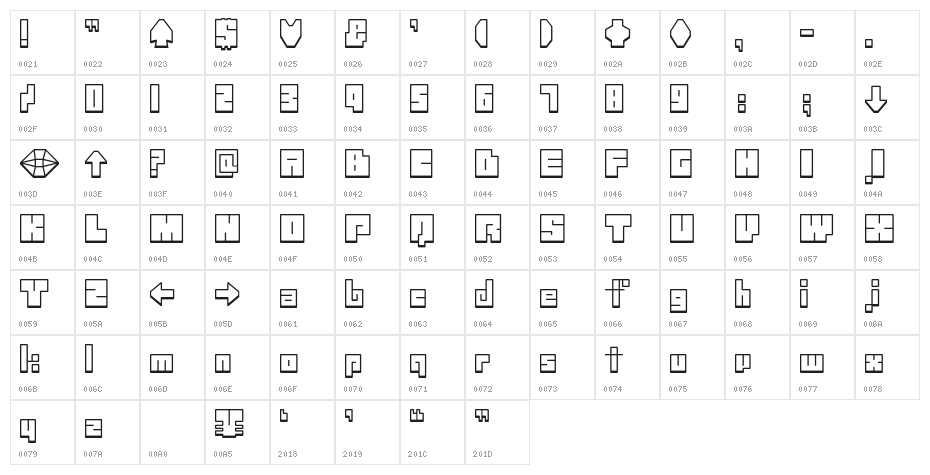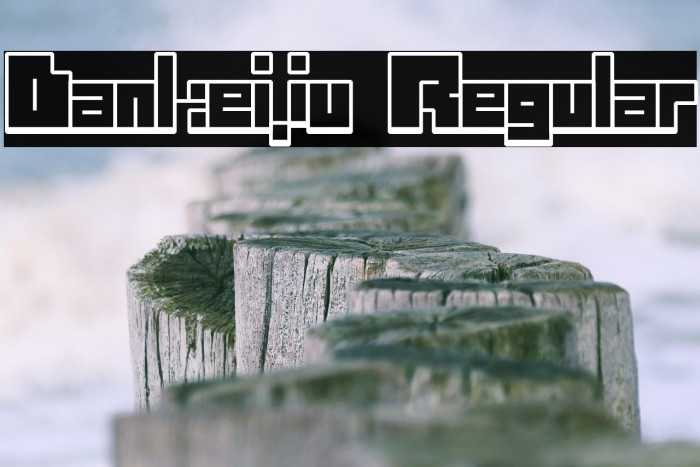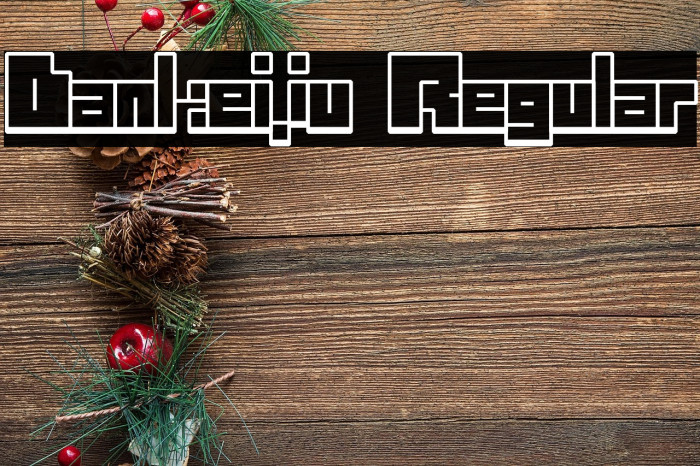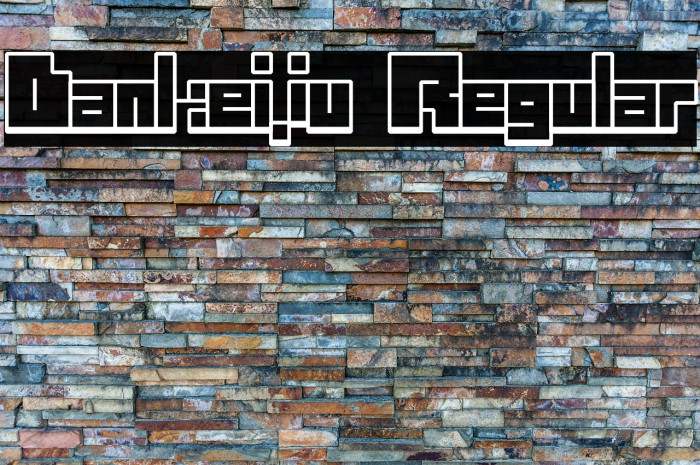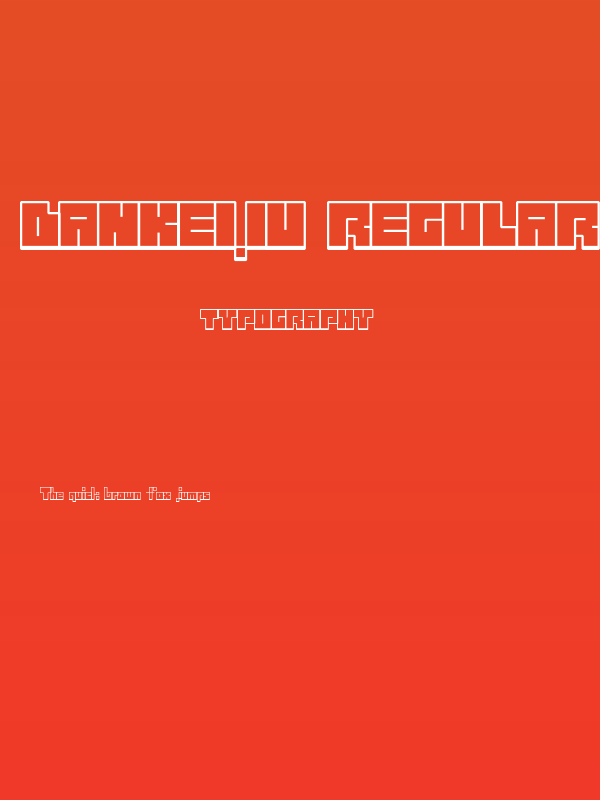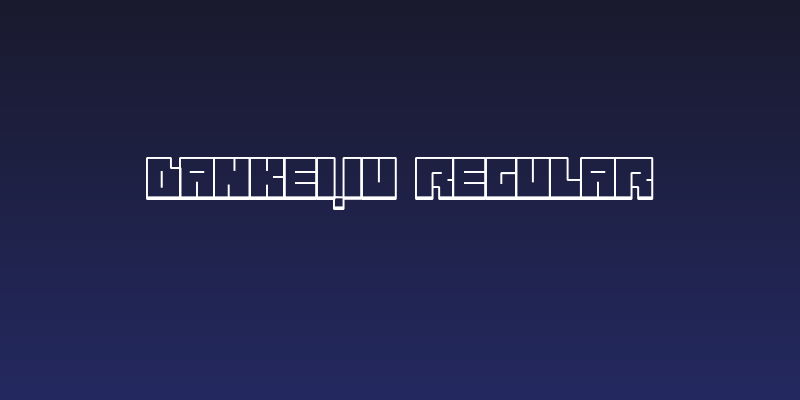
Dankeiju Regular Font
Dankeiju Regular Description
This font features a bold, geometric design with a distinct blocky appearance. Each character is enclosed within a rectangular outline, giving it a structured and modern look. The uppercase and lowercase letters maintain a consistent height, contributing to a uniform aesthetic. The numbers and special characters follow the same design principles, ensuring a cohesive appearance across all glyphs. The font's unique style makes it stand out, with its thick lines and sharp angles providing a strong visual impact.
| Use Case | Logos, Posters, Headlines |
| Proposed Projects | Ideal for video game graphics, tech-themed posters, and futuristic branding. |